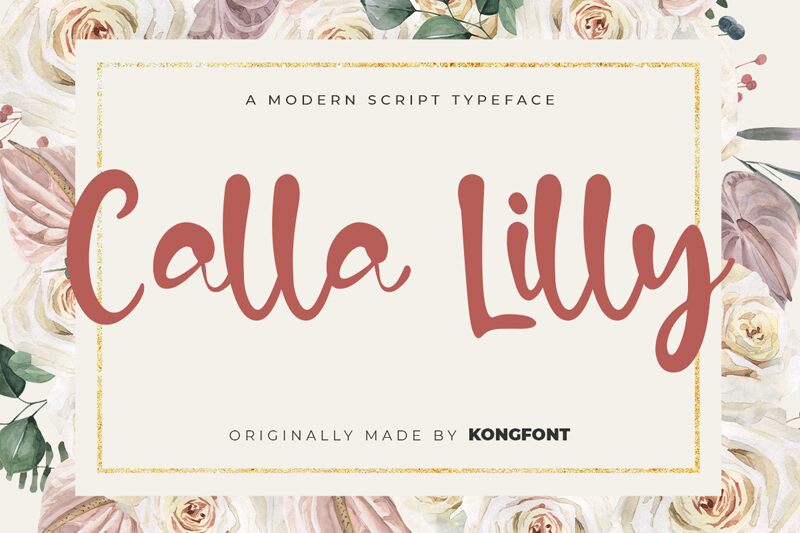
Calla Lilly
Calla Lilly, designed by Kong Font, is a modern script font that exudes elegance and sophistication. With its graceful curves and clean lines, this typeface is perfect for branding projects that require a touch of femininity. Its semi-bold width makes it suitable for use in both print and digital media such as social media graphics, wedding invitations, logos, and more. Whether you're creating a fashion blog or designing an upscale restaurant menu, Calla Lilly's versatile style will elevate your project to the next level.